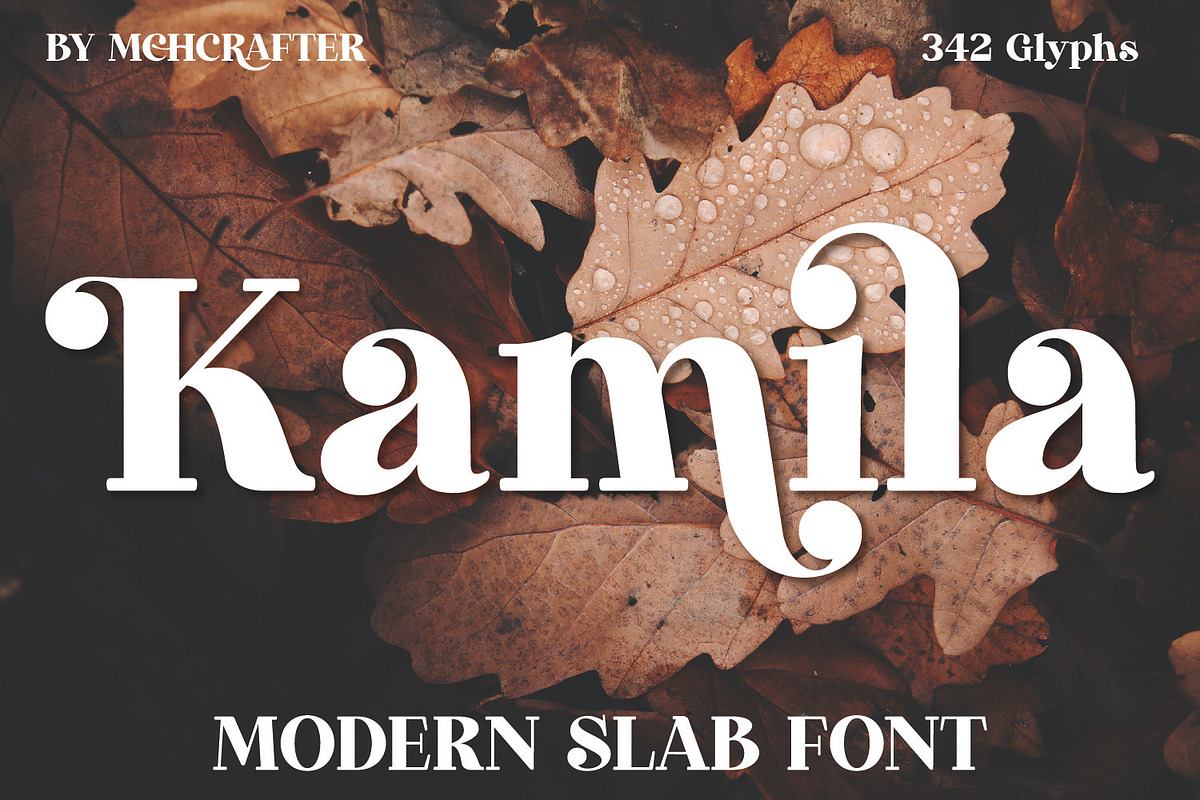
Kamila | Modern Slab Serif Font Free Download
The Kamila | Modern Slab Serif Font Free Download is a clean and stylish serif typeface that blends modern design with classic slab serifs. Perfect for creating bold headlines, logos, branding, and editorial designs, this font adds sophistication and strength to any project. Please note, for commercial use, a license must be purchased. You can download it for free for testing purposes.
With its strong structure and balanced proportions, the Kamila | Modern Slab Serif Font Free Download is ideal for projects that need a modern yet timeless appeal. Whether you're working on web design, print materials, or creative branding, this font delivers a professional, impactful look.